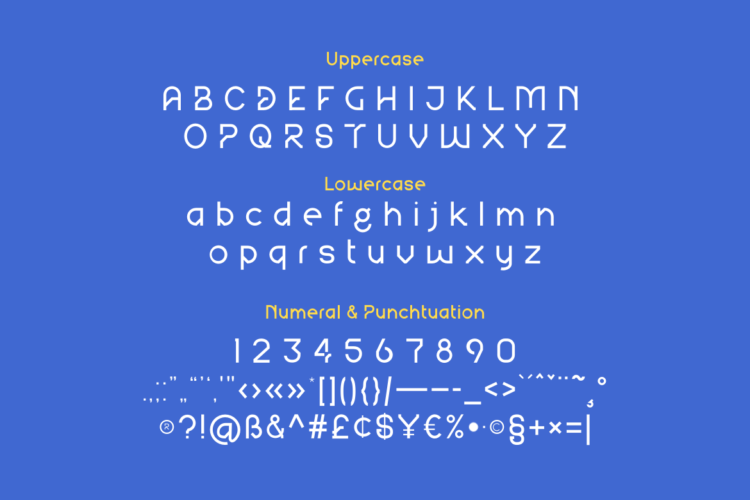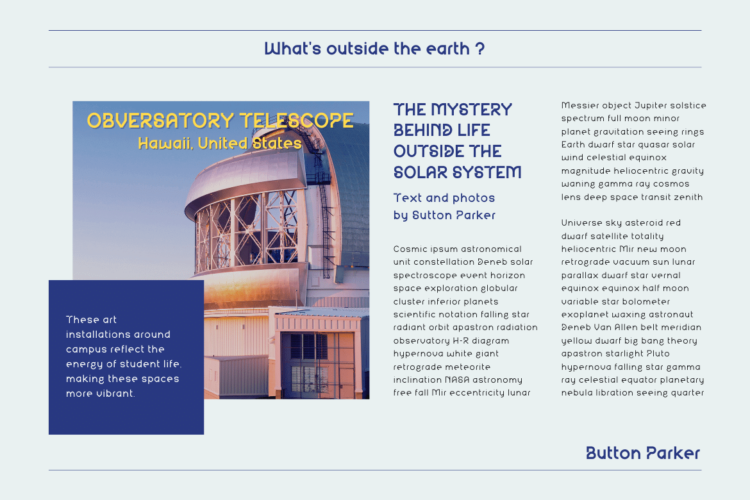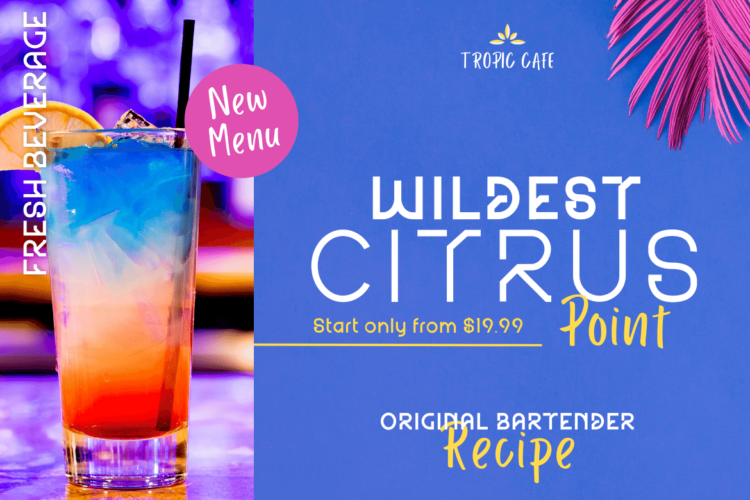
Agree
Agree is a san serif font that we made with a more modern and unique shape than most other fonts.
If you use this font in your project, the graphic appearance of your project will be perfect and unique, attracting the attention of many people. With this typeface, your work will be made easier because your design will stand out from the crowd.
• Fonts include multilingual support for; Afrikaans, Albanian, Croatian, Czech, Danish, Dutch, English, Estonian, Finnish, French, German, Hungarian, Italian, Norwegian, Polish, Portuguese, Slovak, Slovenian, Spanish, Swedish
Agree bytwinletter